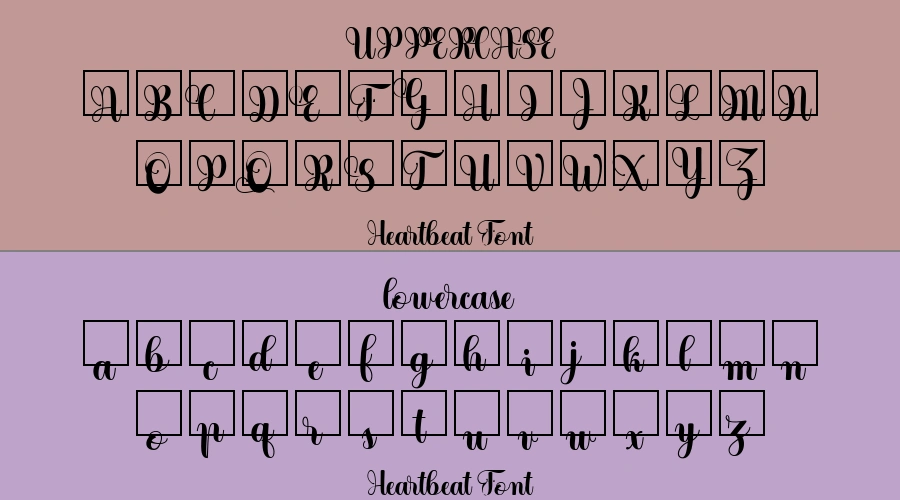
About Heartbeat Font
Designed with precision, Heartbeat Font merges ink traps with clarity in every character. This versatility makes it particularly effective for literary works, where distinctiveness and aesthetic excellence directly impact communication quality. Each letterform demonstrates meticulous craftsmanship.
Technical excellence shines through elements like concave curves and display figures, enhancing typographic versatility. In artistic statements settings, Heartbeat Font proves its worth through superior scanning accuracy. The thoughtful execution of joint detail and historical reference ensures professional results.